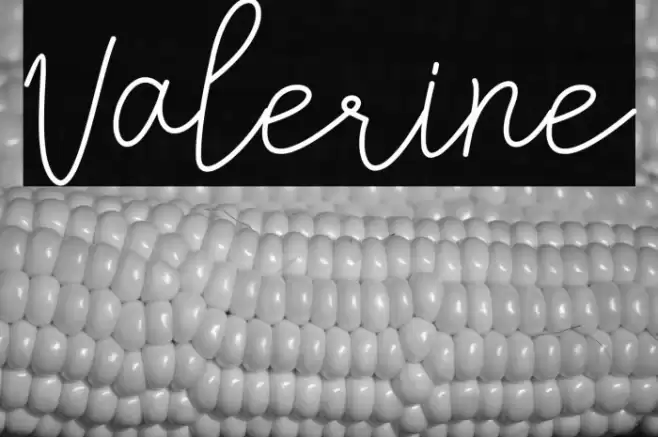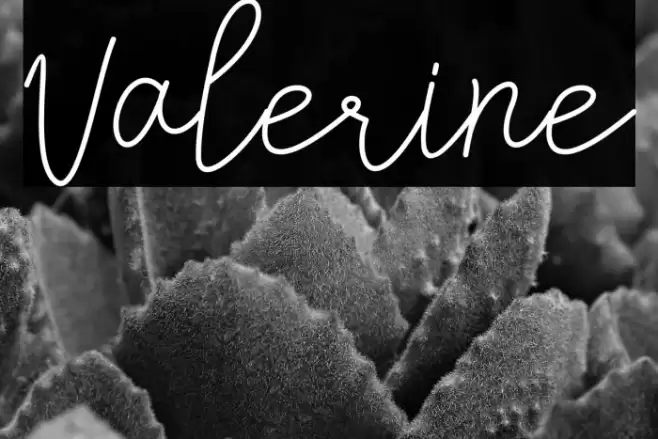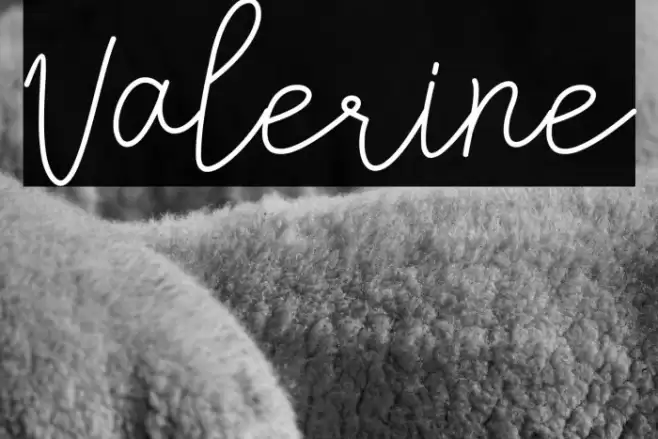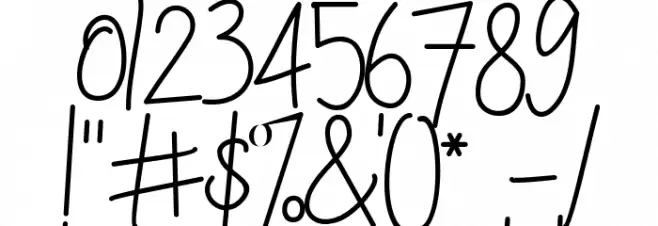
Valerine Font
Valerine Description
This font features a playful and casual handwritten style, characterized by its flowing and connected letterforms. The uppercase letters are tall and slightly narrow, with a consistent slant that gives a sense of movement and fluidity. The lowercase letters maintain the same slant and are designed with a smooth, cursive touch, enhancing the handwritten feel. Numbers are bold and slightly larger, ensuring readability while maintaining the overall style. Special characters are integrated seamlessly, matching the playful and informal aesthetic. The strokes are consistent in width, providing a uniform appearance across all characters.
A playful, casual handwritten font with flowing, connected letterforms from Regular fonts.
- Proposed Projects: Ideal for greeting cards, invitations, personal branding, and social media graphics.
- Overall Style: Casual